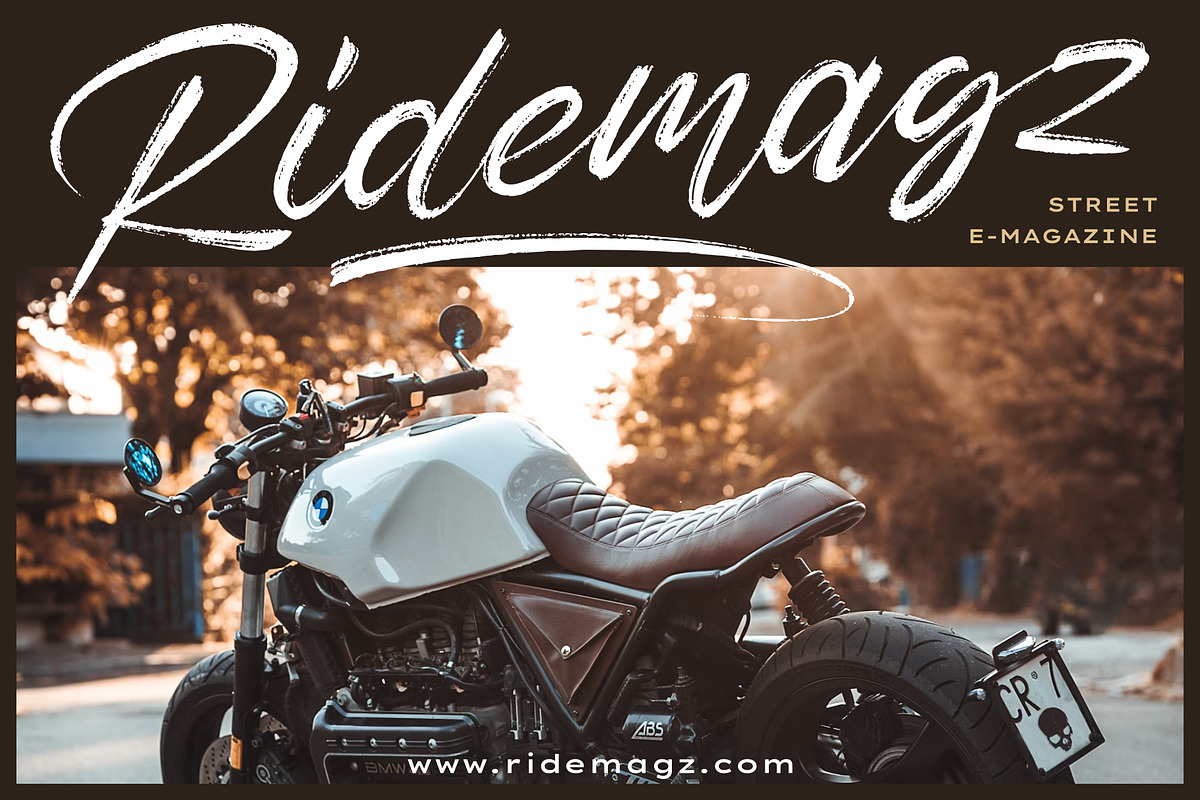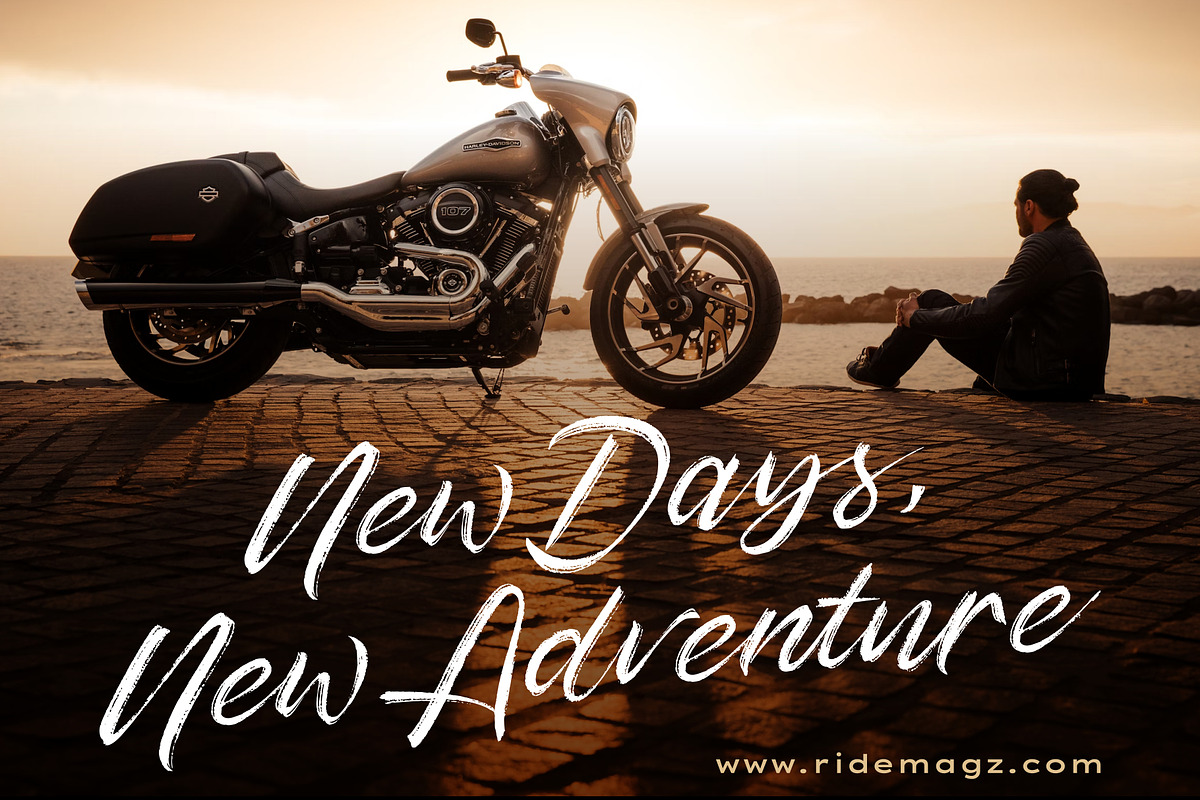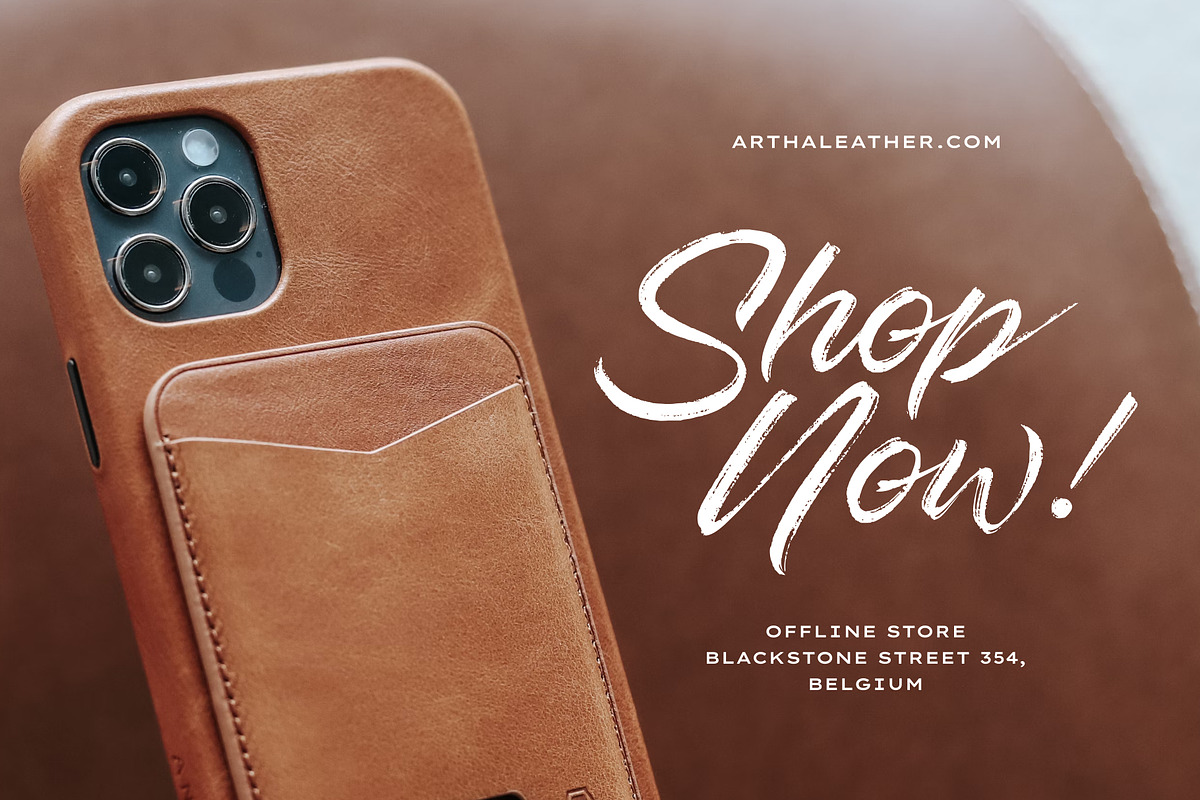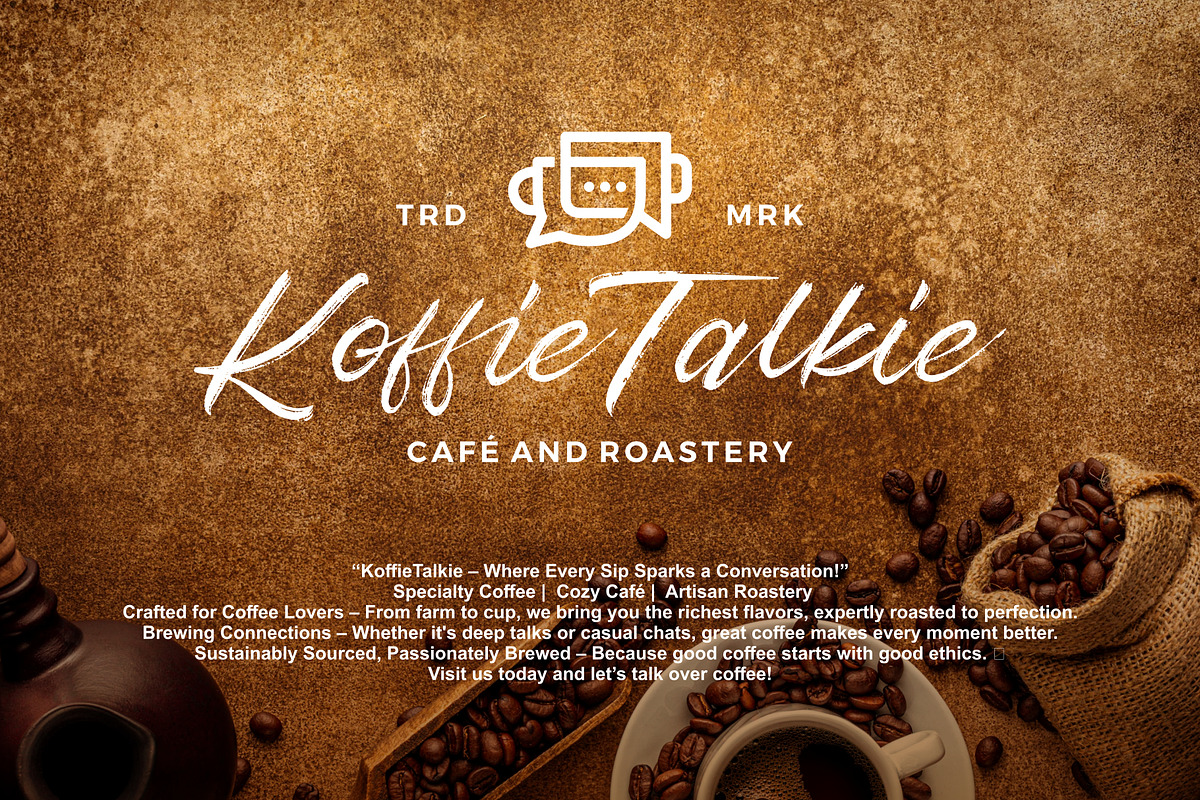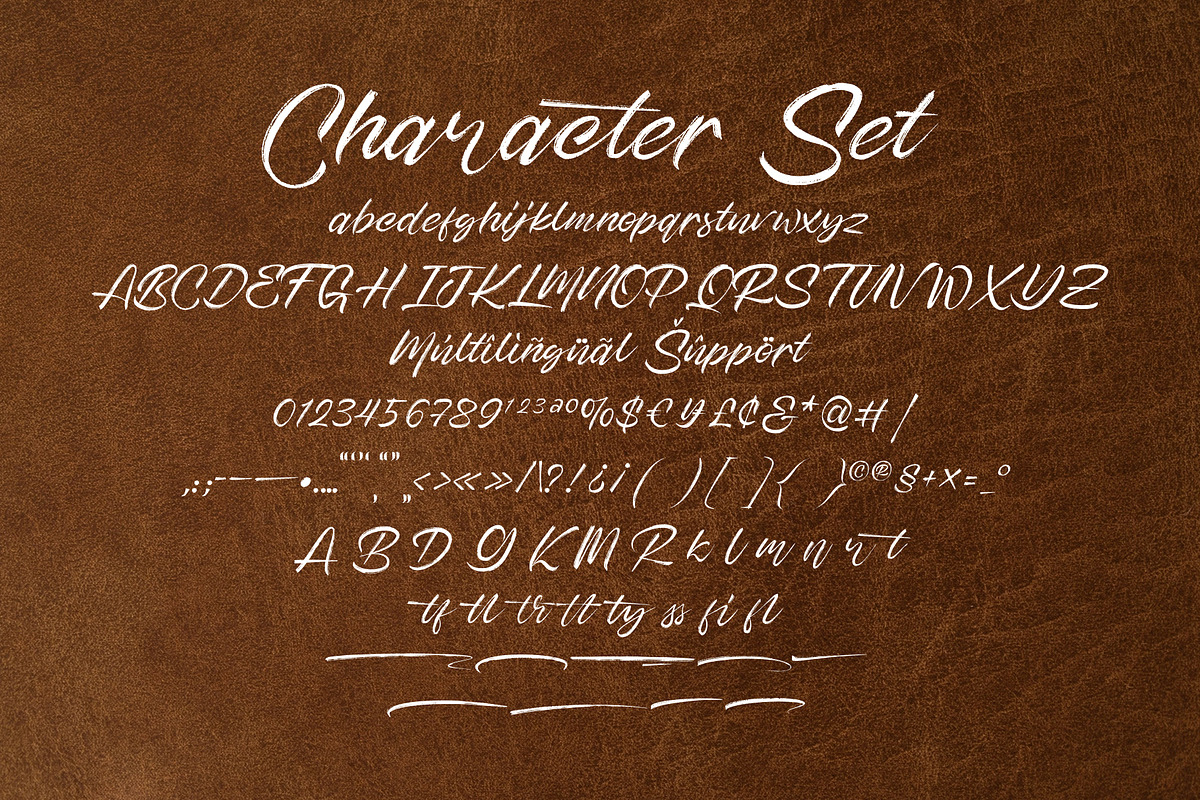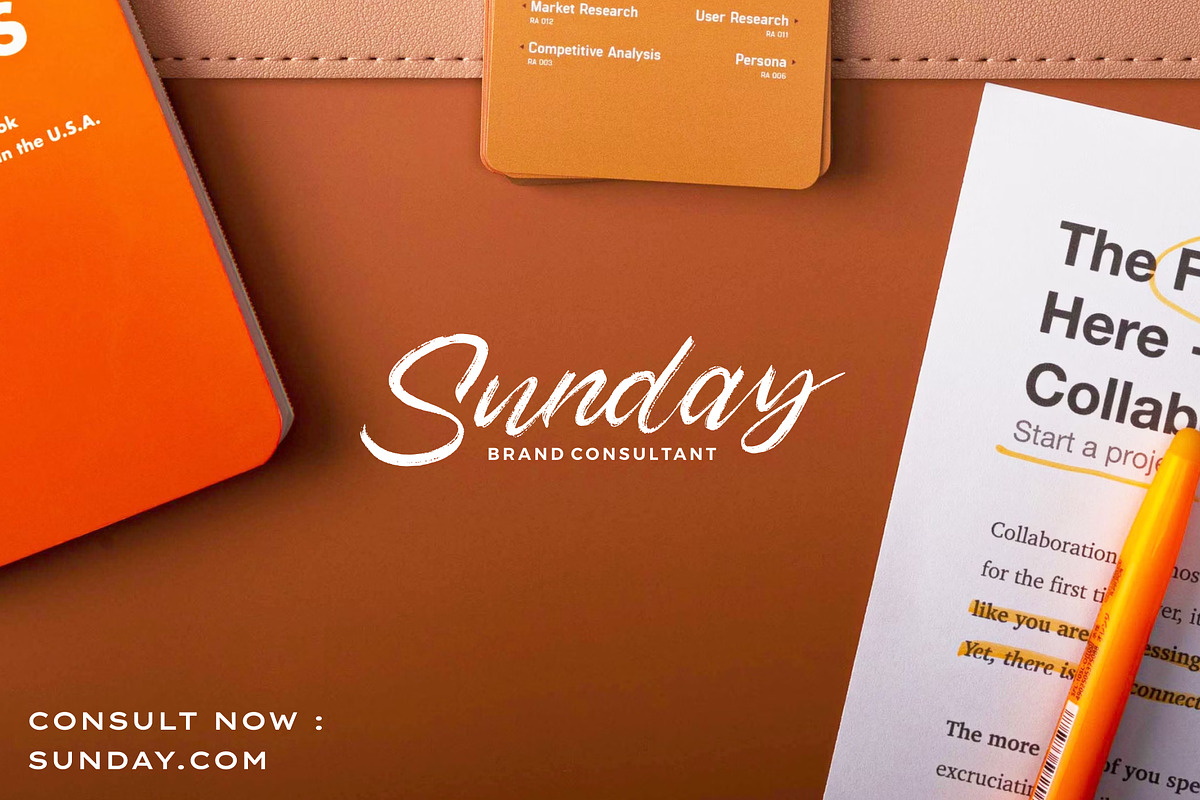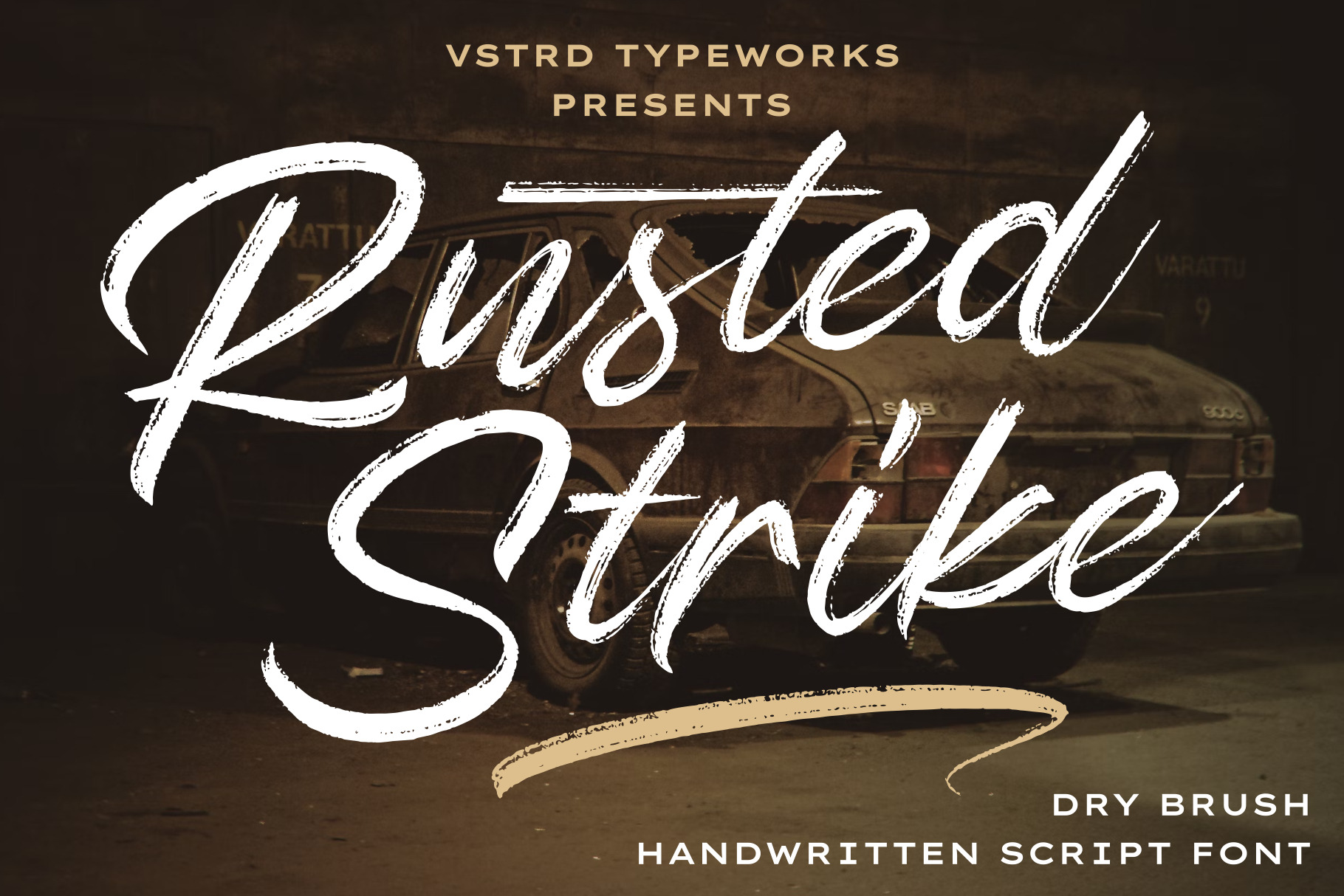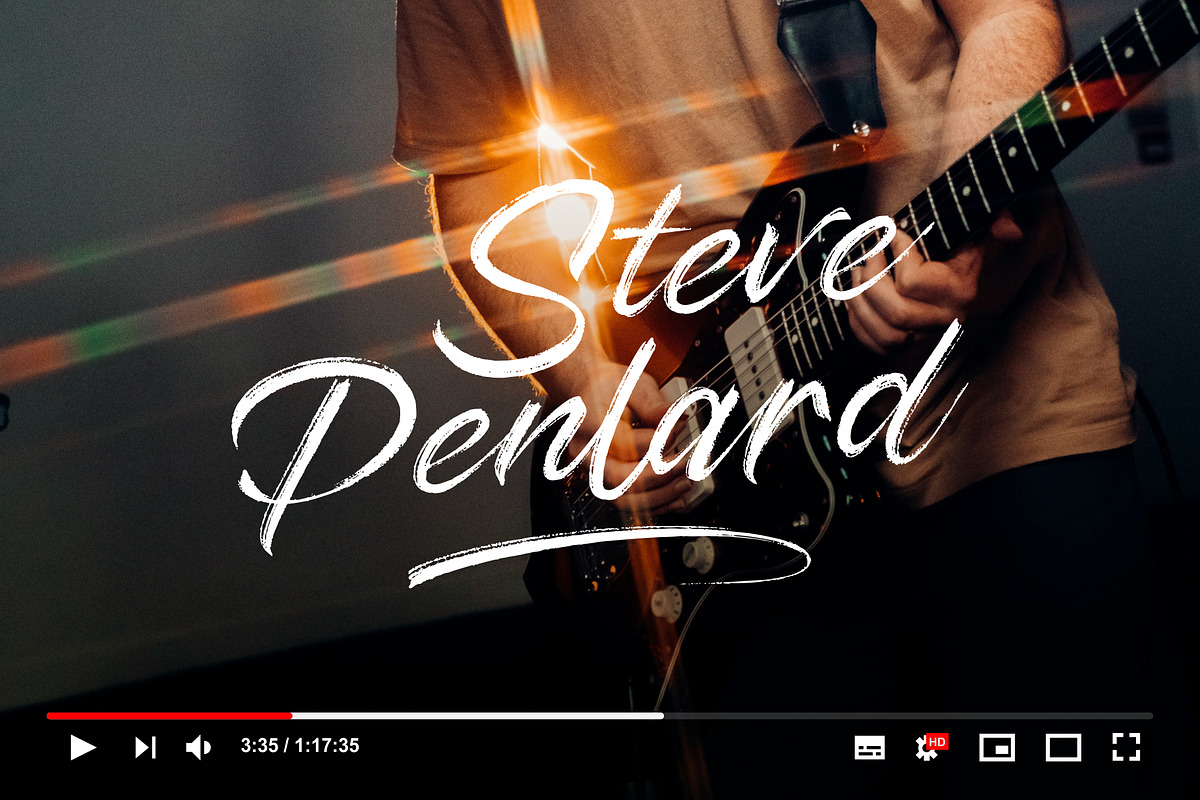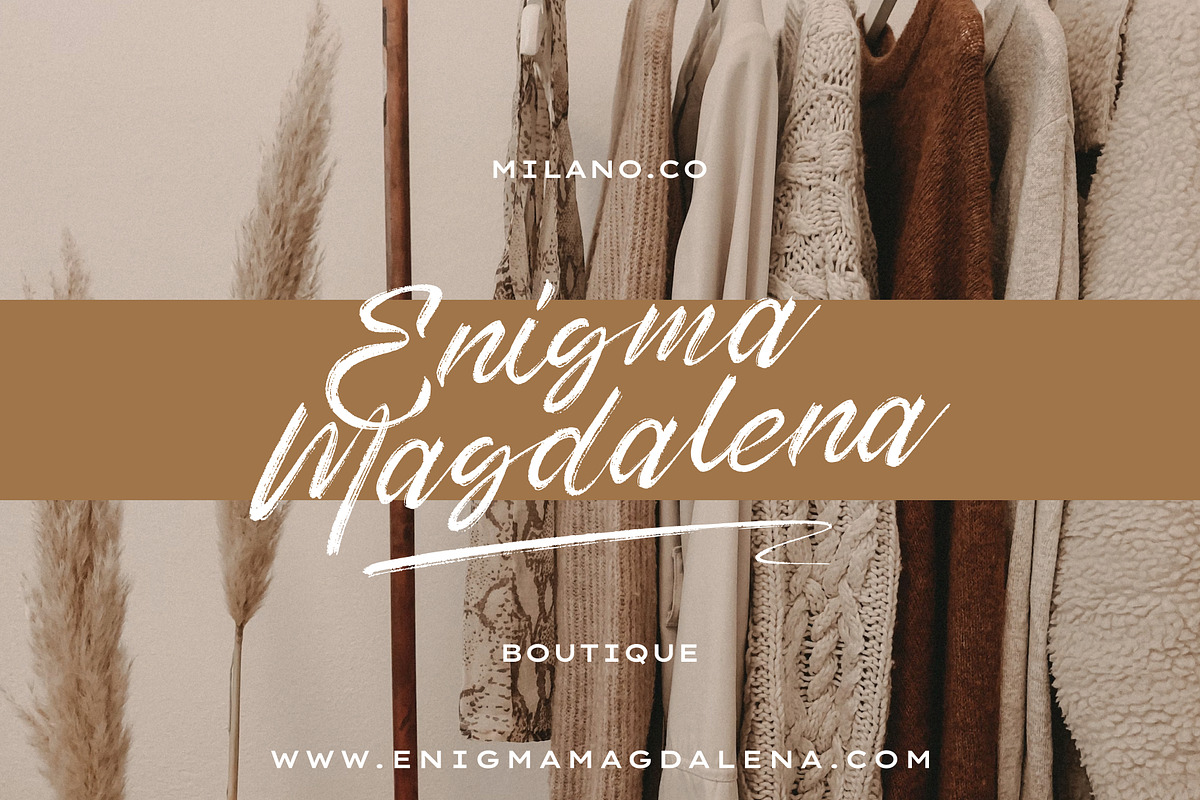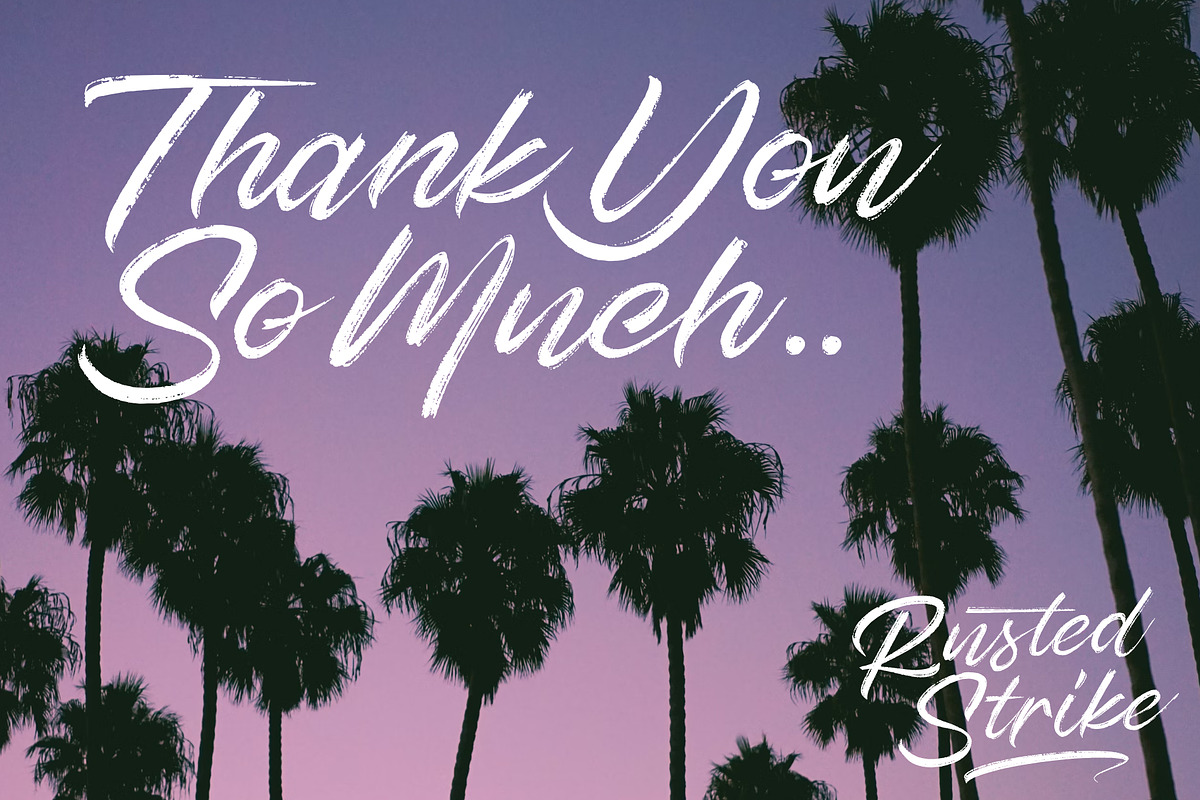
Rusted Strike – Dry Brush Font
Rusted Strike – Dry Brush Handwritten Script Font
Unleash bold creativity with Rusted Strike, a dynamic dry brush script font crafted from natural, hand-scanned brush strokes. Its raw, textured feel delivers an authentic handwritten touch, making it perfect for designs that demand energy and personality.
Whether you're designing logos, signatures, video titles, product branding, quotes, printable templates, posters, flyers, t-shirts, or adding a striking overlay to images, Rusted Strike brings a handcrafted aesthetic that stands out.
Key Features :
- Natural dry brush texture for an organic, hand-painted look
- Versatile for both digital and print projects
- Ideal for bold branding and expressive typography
- Perfect for high-impact, stylish designs
Give your designs a fearless edge with Rusted Strike – where raw strokes meet creative expression!